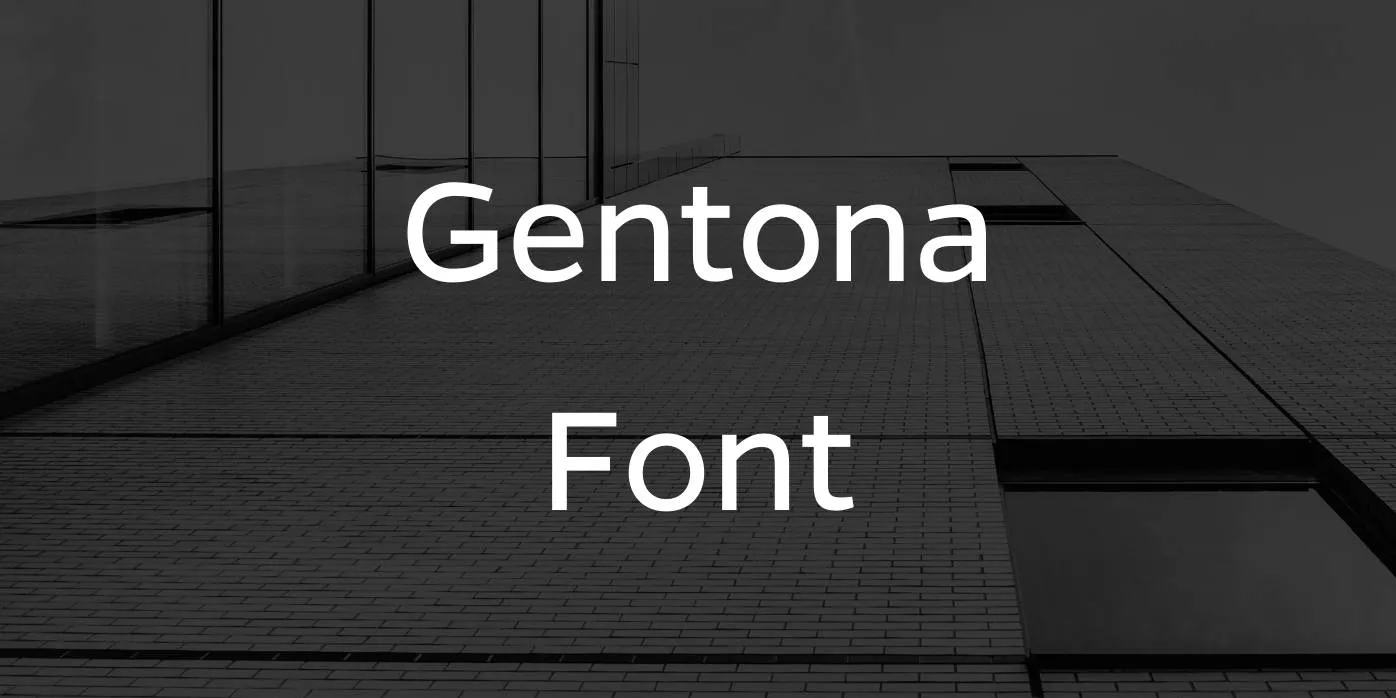
Gentona Font
Today we are consulting a new modern typeface that goes by the name Gentona Font. This stunning typeface belongs to the Sans Serif typeface. Rene Bieder is the main developer of this typeface. Gentona Font is a very versatile typeface that can be used for a variety of different projects, from web design to graphic design or even print designs.
One of the key features that set this font apart from other typefaces is its unique geometric construction. It has clean, crisp lines and sharp edges, giving it a modern aesthetic. Another great thing about this typeface is the wide range of weights available – there are 9 different weight options, ranging from Light to Black. Its copy and paste function is perfect for different designs.